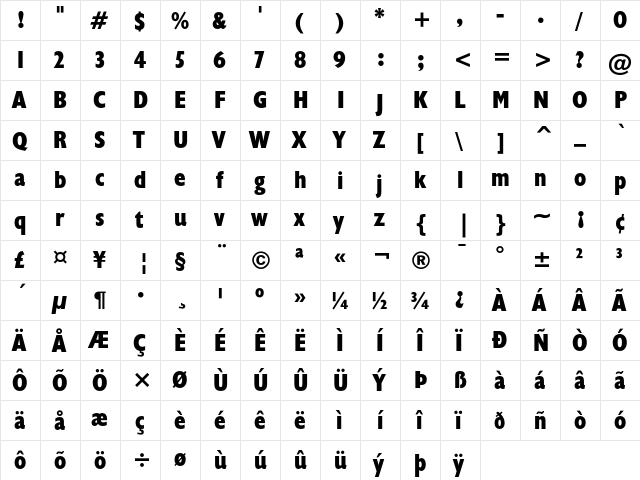
Humanist 521 Extra Bold Condensed
Design Context for Humanist 521 Typeface
Humanist 521 offers clean, dependable letterforms without strong stylistic allegiance, making it a practical choice for designers who need flexibility. Its bold stroke weight gives it real presence on the page. Its narrow stance lets it pack a punch even in space-constrained designs.